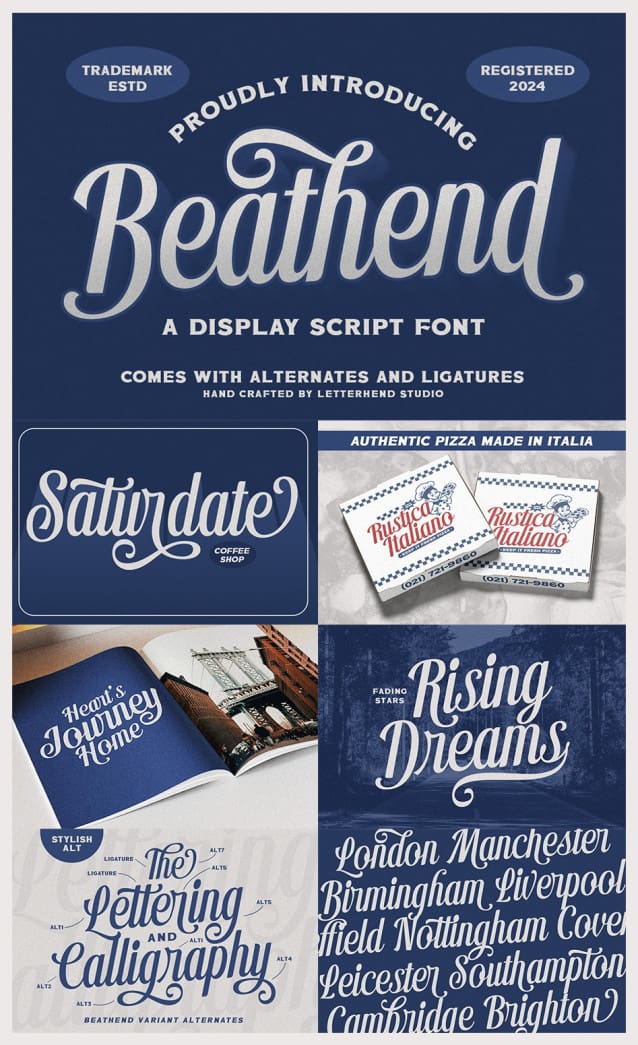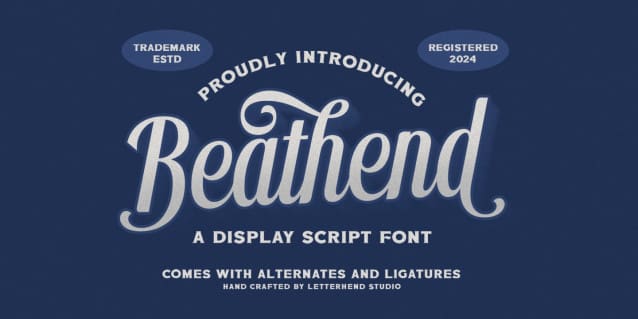
Beathend Font is a sophisticated display script font designed to exude elegance and vintage charm. It combines smooth curves and bold strokes, making it ideal for branding, logos, packaging, and promotional materials. The font comes with alternates and ligatures, allowing for creative customization and versatility.